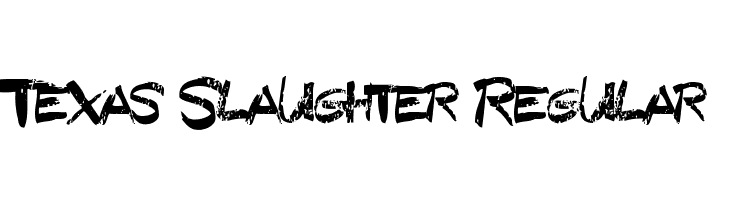
A bold, decorative, and distressed italic font with a vintage flair.
A bold, decorative font with a distressed, vintage appearance.
A bold, decorative, and distressed italic font with a vintage flair.
A bold, decorative font with a distressed, vintage appearance and whimsical detailing.
A distressed, grungy font with erratic, splattered strokes and a chaotic aesthetic.
A bold, distressed font with a rugged, vintage appearance.
A bold, distressed slab serif font with a rugged, vintage appearance.
A bold, distressed font with a rugged, western-inspired aesthetic.
A bold, distressed Western-style font with a vintage, rugged appearance.
A bold, dripping font ideal for horror and spooky themes.
A bold, graffiti-style font with a distressed, urban look.
A playful and whimsical font with rounded edges and open counters.
A sleek, modern font with thin, elongated letterforms for a sophisticated look.
A bold, angular serif font with a modern and striking design.
A bold, modern font with a geometric influence, perfect for impactful headlines.
A bold, gothic font with dripping, textured elements and a blackletter style.
A bold, outlined geometric font with a modern and structured appearance.
A bold, distressed font with a vintage, rugged appearance.
A bold, italicized font with a double-outline effect, perfect for modern and dynamic designs.
Bold, italicized font with a three-dimensional outline effect.
A bold, outlined font with a modern, geometric style.
A bold, distressed font with a vintage, rugged appearance.
A bold, geometric font with unique circular cutouts and a uniform appearance.
A bold, distressed font with a vintage, grunge style.
A bold, vintage-inspired serif font with high contrast and strong serifs.
A sleek, modern italic font with geometric precision and futuristic style.
A bold, modern font with a geometric and condensed design.
A bold, industrial serif font with strong geometric elements.